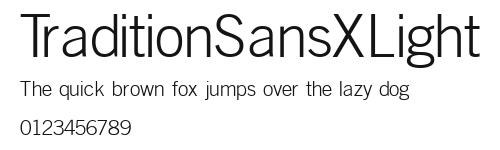
• Font Name: TraditionSansXLight
• Full Font Name: TraditionSansXLight
• Character Count: 330
About TraditionSansXLight.ttf
TraditionSansXLight.ttf is a modern, elegant sans-serif font designed for ultimate readability and visual harmony. Perfect for branding, headlines, web design, and print materials.